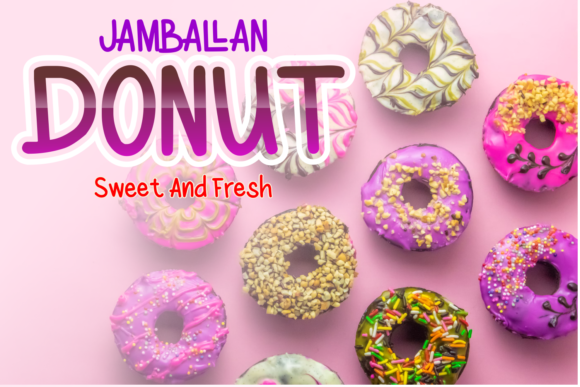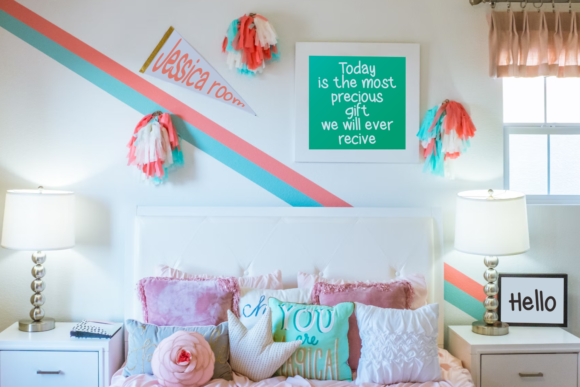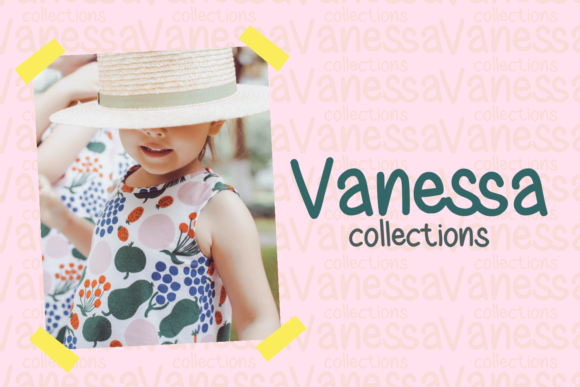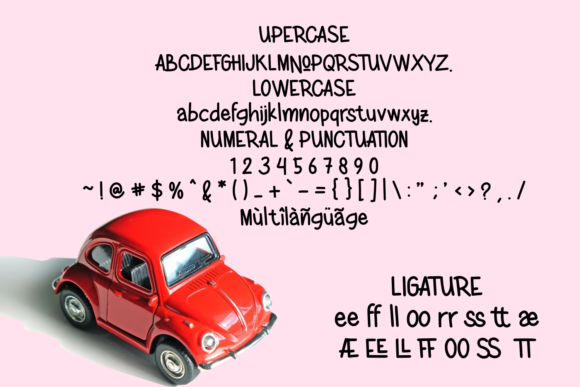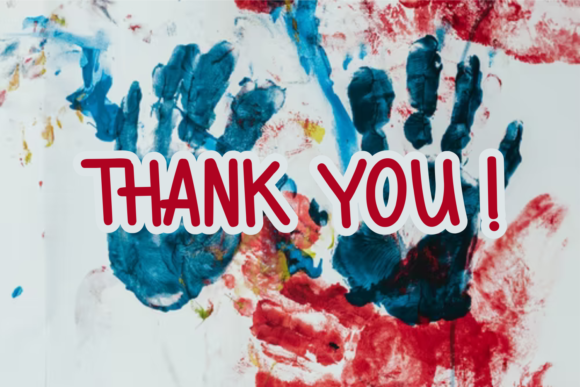
About Shakilla Font
Pleased to introduce you to Shakilla new handwritten kid’s fun font! This is a cute kids’ handwritten font that would be perfect for comics, books, greeting cards, toys, posters, picture books, branding, logo, or anything that requires a fun and happy look!